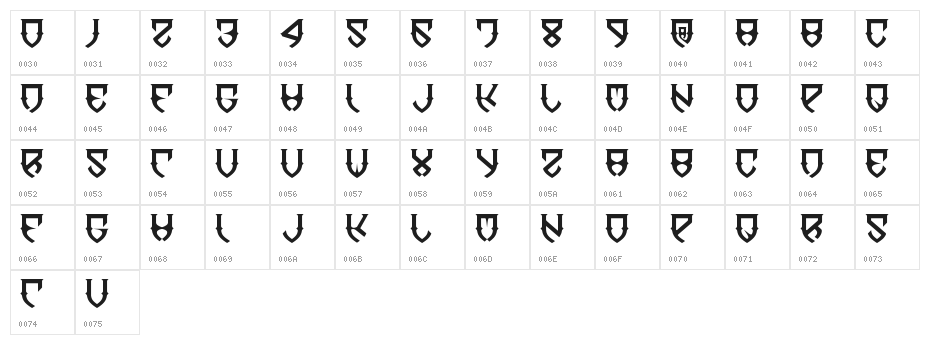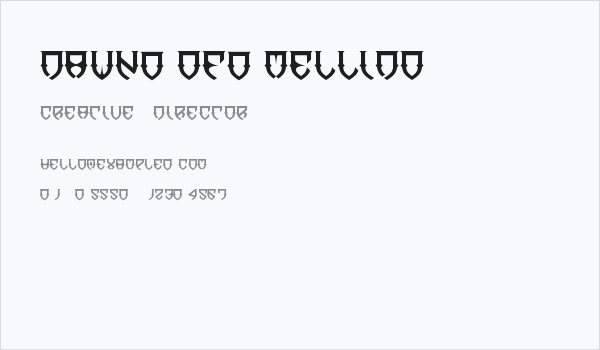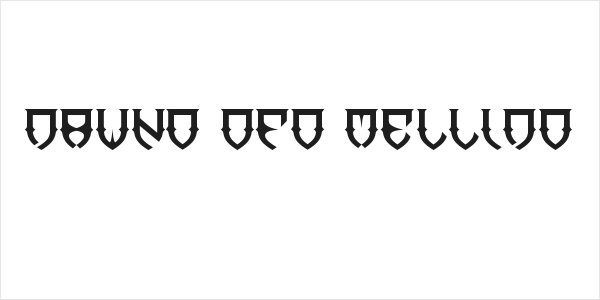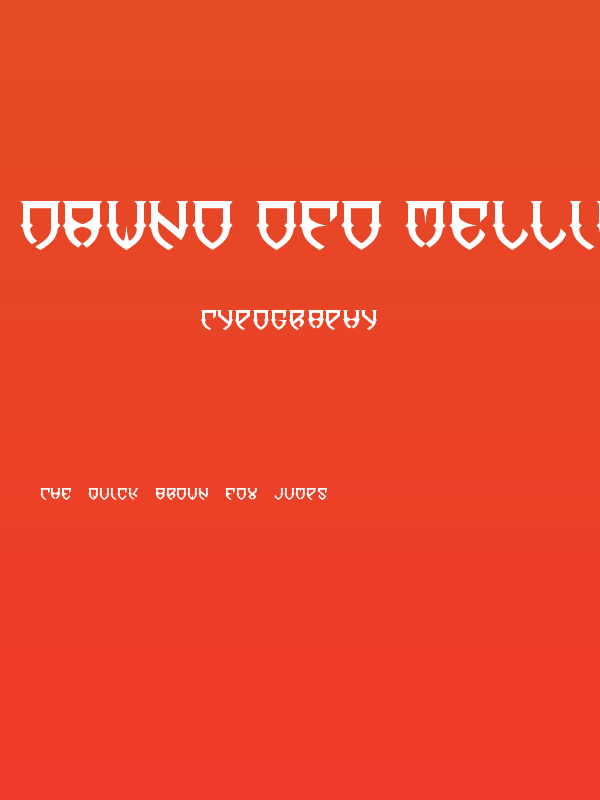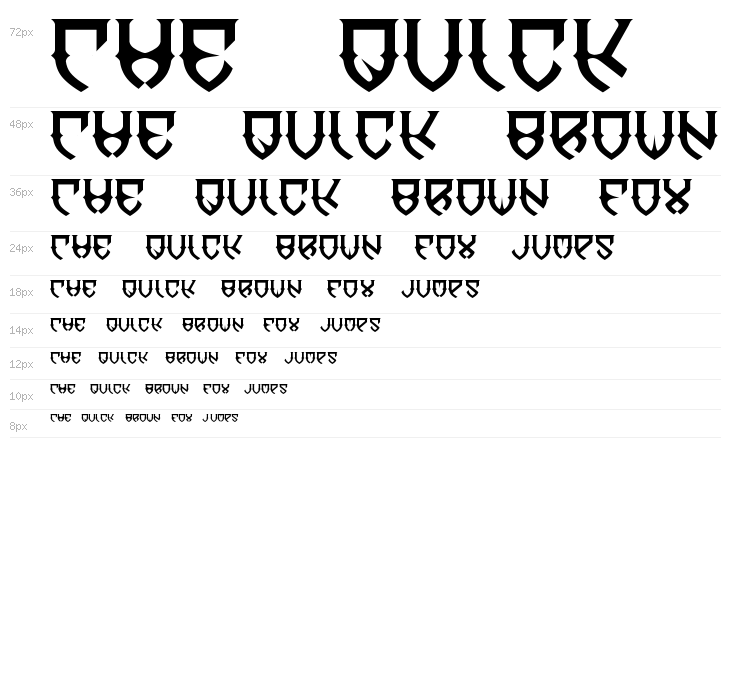
Dawn-of-Mellido Font
Dawn-of-Mellido Description
This font features a bold, angular design with sharp edges and a medieval aesthetic. The characters are heavily stylized, resembling ancient runes or glyphs, with a strong emphasis on geometric shapes. The uppercase letters are particularly striking, with a uniform height and width that creates a cohesive and impactful appearance. The numbers and special characters maintain this theme, offering a consistent visual experience across all elements. This font is ideal for projects that require a dramatic and historical feel, such as fantasy-themed designs or branding for products that want to evoke a sense of mystery and tradition.
Overall StyleMedieval, Decorative
Proposed ProjectsFantasy book covers, game titles, historical event posters, themed restaurant branding.